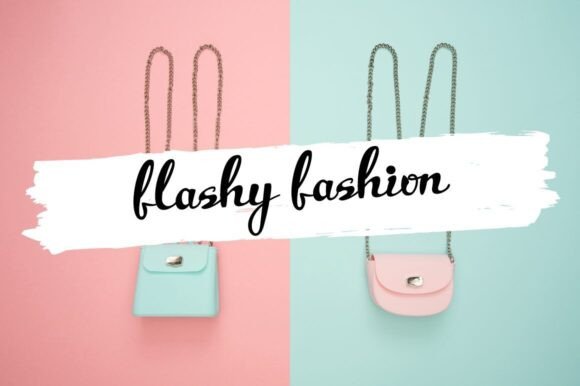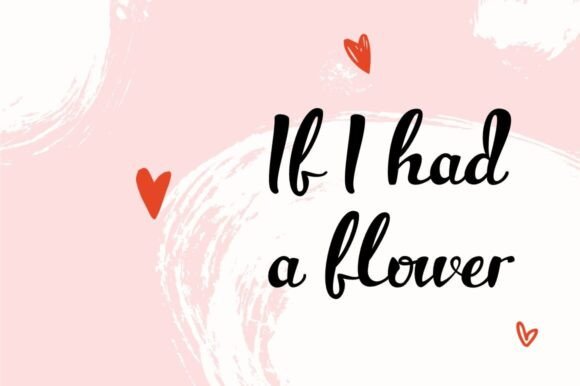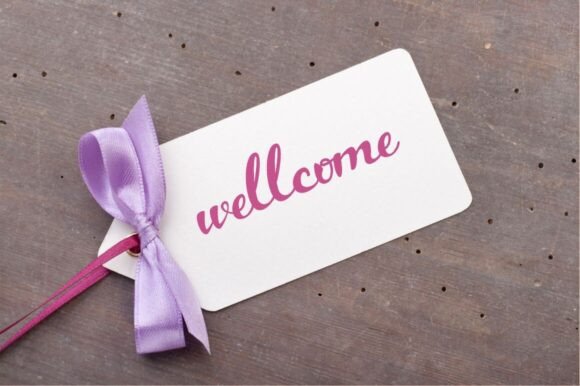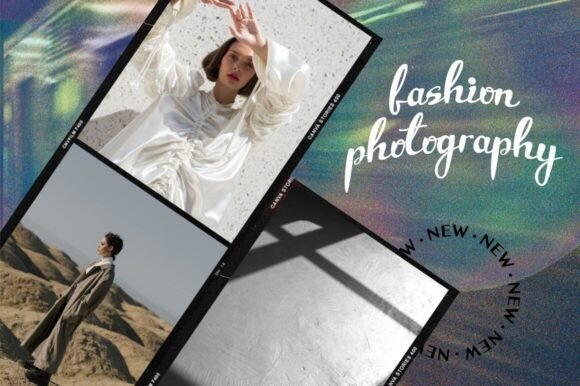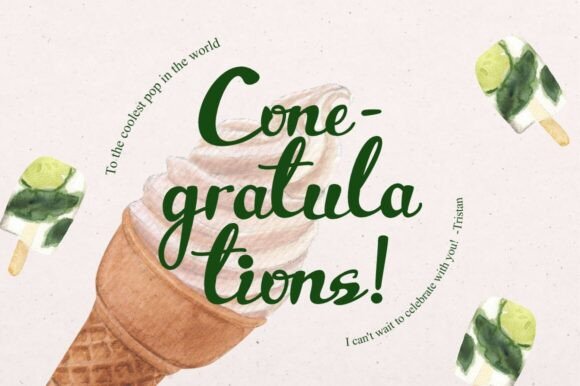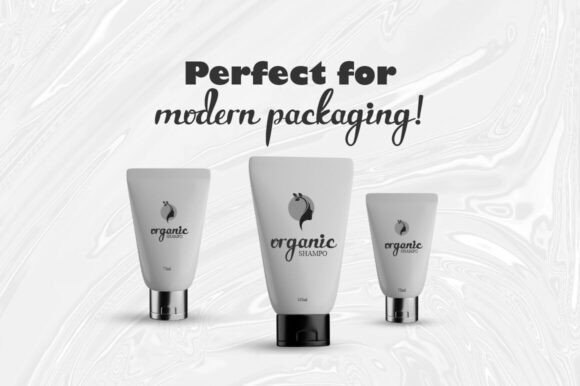
Introducing Handalimun: The Modern Script Font for Elegant Designs
In the world of typography, a font can make or break a design. For designers and crafters looking for a modern script font that exudes sophistication and approachability, look no further than Handalimun. This sleek and flowing script font is crafted to add a personal touch to a variety of projects, from branding and invitations to logos and social media graphics.
The Art of Elegance: Handalimun’s Design
Handalimun is a masterclass in elegant design. Each letter is carefully crafted with smooth, flowing curves and graceful connections, creating a sense of movement and fluidity. The font’s sleek lines and refined aesthetic make it perfect for designs that require a touch of sophistication. Whether you’re creating a luxury brand identity or a wedding invitation, Handalimun’s elegant design is sure to impress.
A Blend of Modernity and Calligraphy
What sets Handalimun apart is its unique blend of contemporary aesthetics and calligraphic nuances. The font’s modern script style is infused with the subtle flair of calligraphy, giving it a distinctive and artistic feel. This blend of styles makes Handalimun versatile and adaptable, suitable for a wide range of design applications.
Handalimun’s versatility is one of its greatest strengths. This font is perfect for:
- Branding: Create a lasting impression with Handalimun’s elegant and sophisticated design. Use it for logos, business cards, and letterheads to establish a cohesive brand identity.
- Invitations: Add a touch of luxury to your wedding invitations, event invitations, or party invites with Handalimun’s flowing script style.
- Logos: Create a unique and memorable logo with Handalimun’s sleek and modern design.
- Social Media Graphics: Elevate your social media presence with Handalimun’s artistic and engaging design. Use it for graphics, quotes, and promotional materials.
Readability and Artistic Flair
One of the key benefits of Handalimun is its balance of readability and artistic flair. The font is designed to be easy to read, making it perfect for body text and captions. At the same time, its elegant design and smooth curves give it a distinctive artistic feel that’s sure to stand out.
Adding Warmth and Style to Your Designs
Handalimun brings a sense of warmth and style to any design. Its modern script style is both approachable and sophisticated, making it perfect for designers and crafters looking to add a personal touch to their projects. Whether you’re creating a brand identity, invitation, or social media graphic, Handalimun is the perfect choice.
Why Choose Handalimun?
So why choose Handalimun over other script fonts? Here are just a few reasons:
- Elegant Design: Handalimun’s sleek and flowing design makes it perfect for designs that require a touch of sophistication.
- Versatility: Handalimun is suitable for a wide range of design applications, from branding and invitations to logos and social media graphics.
- Readability: Handalimun is designed to be easy to read, making it perfect for body text and captions.
- Artistic Flair: Handalimun’s elegant design and smooth curves give it a distinctive artistic feel that’s sure to stand out.
In conclusion, Handalimun is a modern script font that’s perfect for designers and crafters looking to add a touch of elegance and sophistication to their designs. With its sleek and flowing design, versatile style, and balance of readability and artistic flair, Handalimun is the perfect choice for a wide range of design projects.